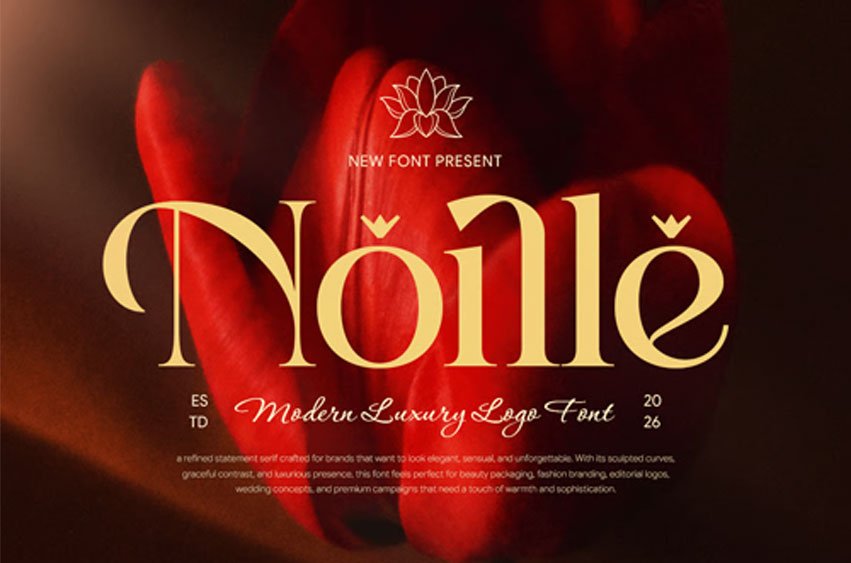
Noille Font Feminine Luxury Serif Font Noille is a feminine luxury serif font designed to deliver elegance, softness, and a refined premium aesthetic. Featuring graceful serif details, stylish curves, and balanced proportions, Noille is perfect for fashion branding, beauty packaging, wedding invitations, cosmetics, and sophisticated design projects.
Combining classic serif beauty with modern feminine luxury, Noille creates a graceful and memorable visual identity. Its elegant structure ensures excellent readability while maintaining a delicate and exclusive appearance, making it ideal for boutique brands, jewelry labels, skincare products, and high-end editorial design.
Noille – Feminine Luxury Serif Font Features:
- Elegant serif style with feminine luxury aesthetics
- Graceful curves and refined premium letterforms
- Ideal for logos, beauty branding, fashion, and weddings
- Balanced structure with classy visual harmony
- Perfect for boutique brands, cosmetics, and editorial design
Bring timeless beauty to your design with Noille – the feminine luxury serif font made for elegant branding.